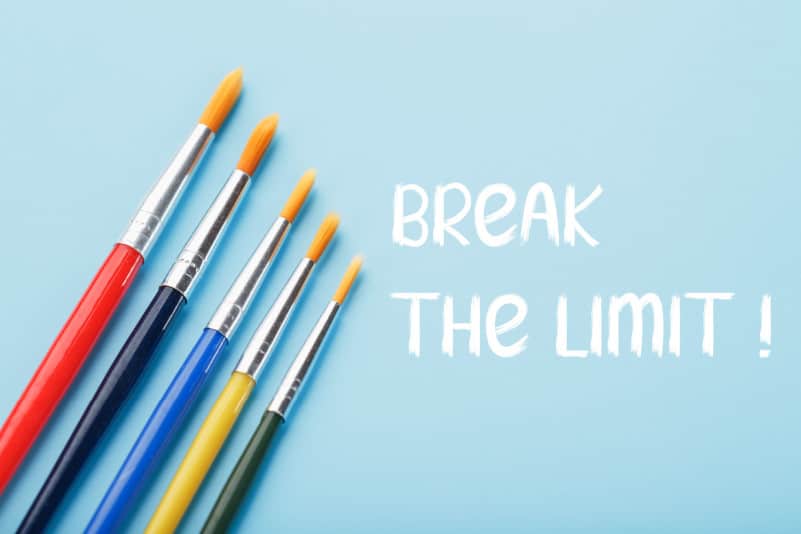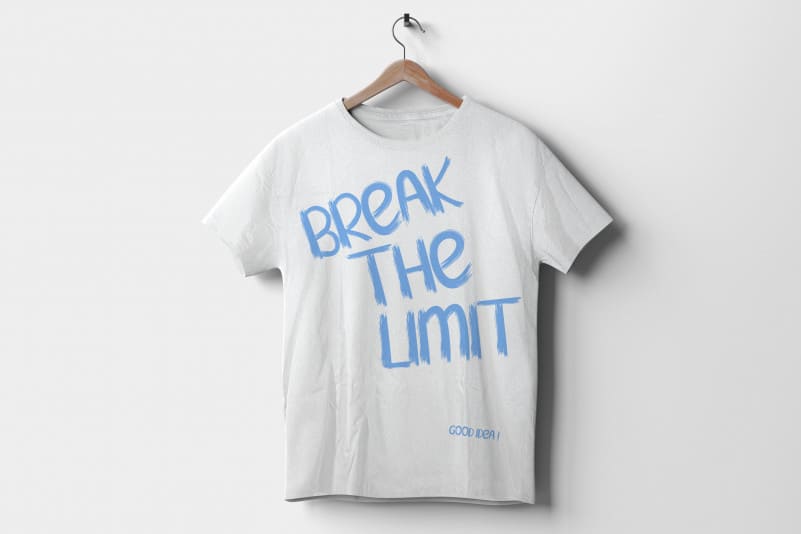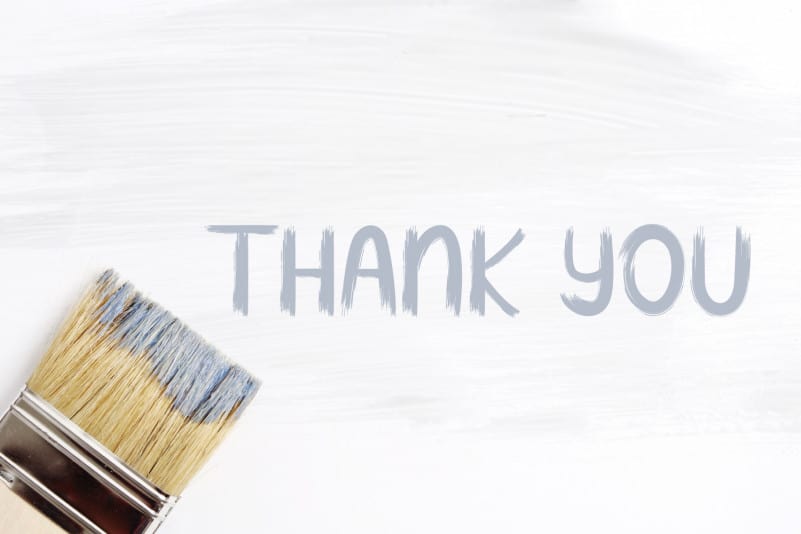
Blue paint Brush Font
Blue paint Brush Font is a unique and interesting display font, created with the help of a brush pen. Fall in love with its incredibly versatile style and use it to create spectacular designs!